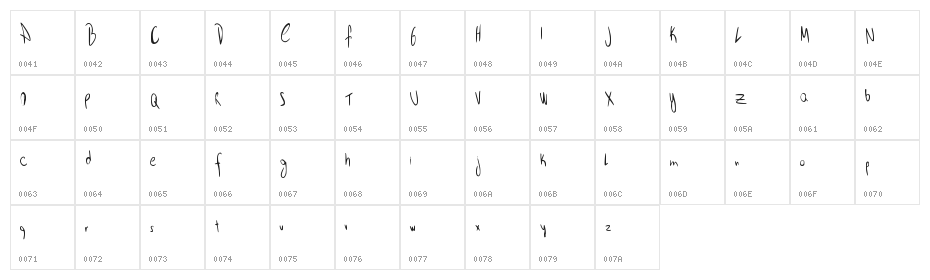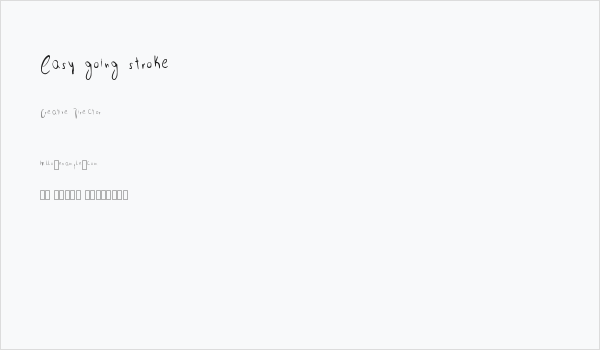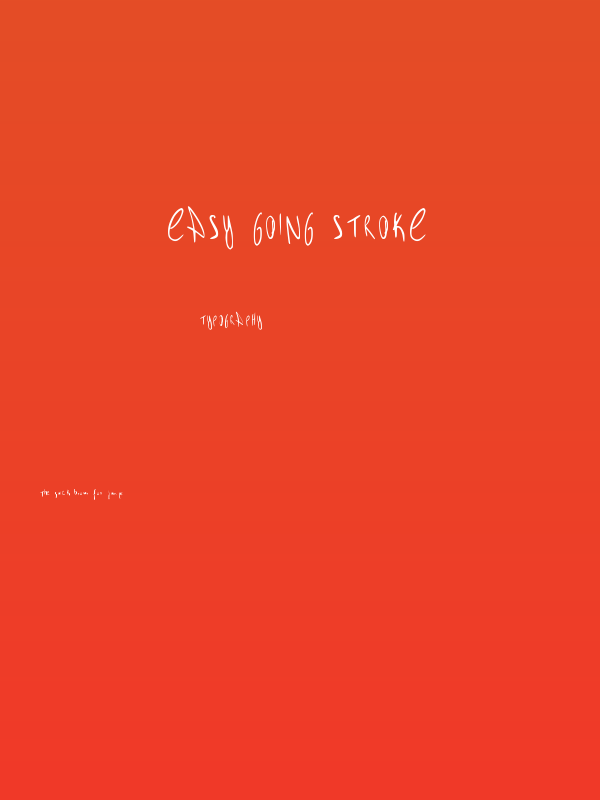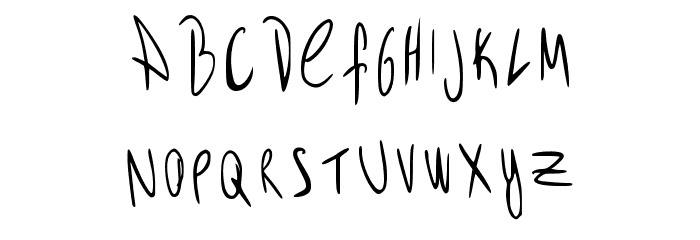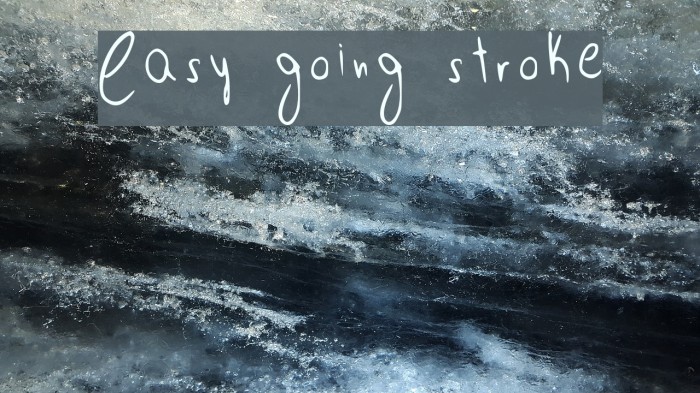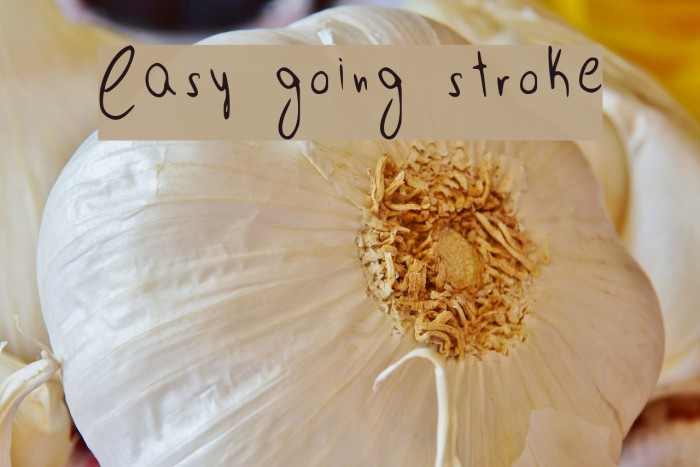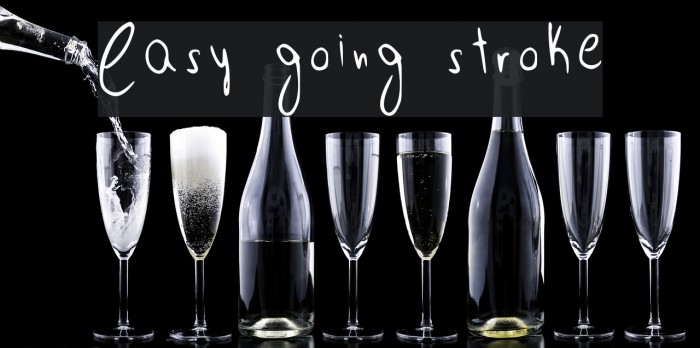
Easy going stroke Font
Easy going stroke Description
This font features a playful and casual handwritten style, characterized by its irregular strokes and whimsical appearance. The letters are slightly slanted, giving it an informal and relaxed vibe. The uppercase and lowercase letters maintain a consistent flow, with some characters featuring elongated ascenders and descenders, adding to its quirky charm. The numbers and special characters follow the same playful aesthetic, making it suitable for creative and informal projects. The overall design is approachable and friendly, perfect for conveying a sense of fun and spontaneity.
| Proposed Projects | Ideal for greeting cards, children's books, casual invitations, and playful branding. |